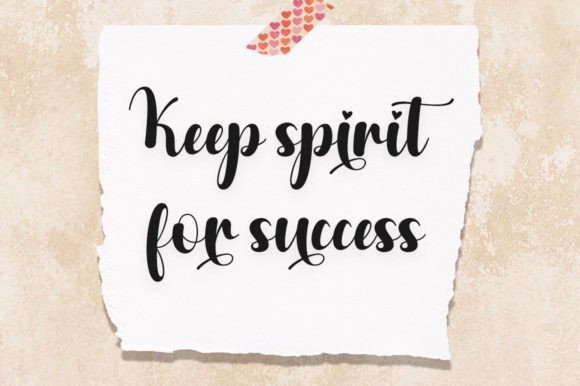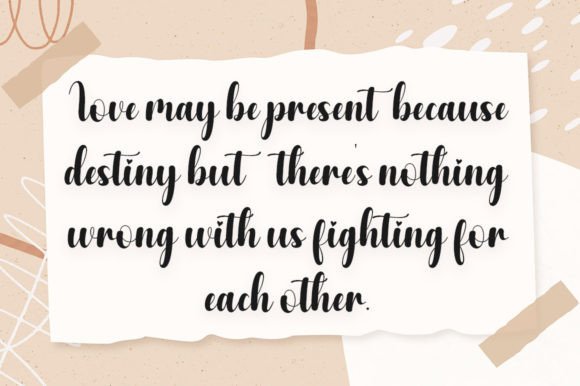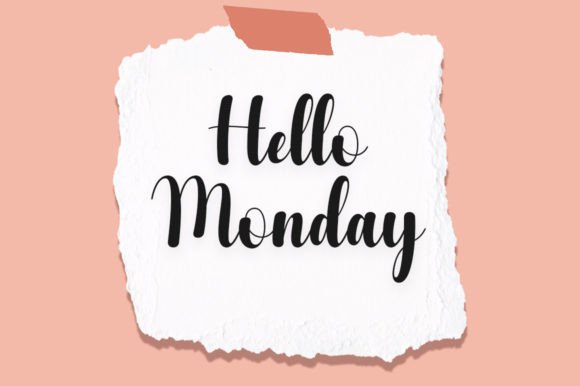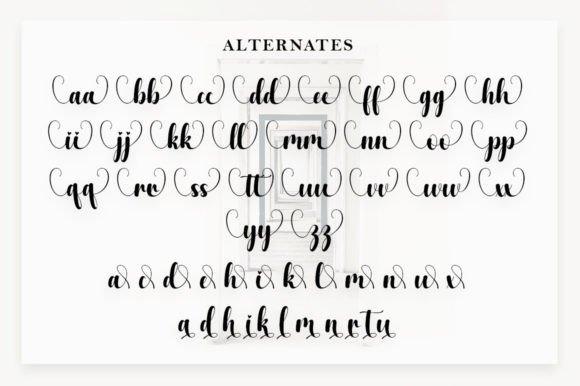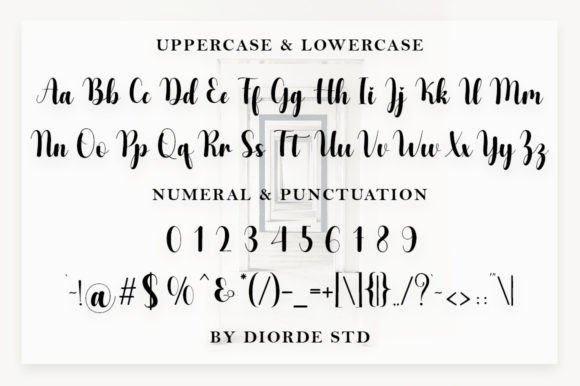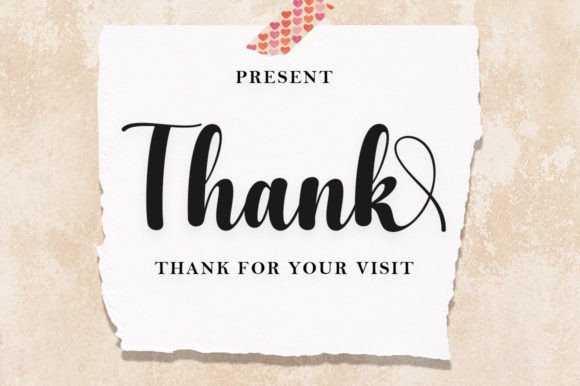
Unleash the Beauty of Handwritten Design with Bella Queen Font
Remember the moment when you first started working on a special project, like a wedding invitation or a birthday card for a loved one? The excitement and anticipation of bringing your vision to life is exhilarating, isn’t it? You want to add that perfect touch that will make it truly unique and memorable. That’s where the Bella Queen Font comes in – a beautiful, elegant handwritten font that will elevate your design to new heights.
With its neat and sophisticated style, the Bella Queen Font is perfect for any project that needs a touch of sophistication and whimsy. Whether you’re a professional designer or a hobbyist, this font is a valuable addition to your toolkit. It’s ideal for wedding invitations, cards, and any other design that requires a fancy touch. By incorporating the Bella Queen Font into your work, you’ll be able to create stunning and professional-looking designs that will leave a lasting impression.
Bella Queen Font Key Features
- Unique Characteristics: The Bella Queen Font features elegant, cursive script with intricate details and flourishes, making it ideal for creating beautiful, handwritten-style text.
Bella Queen Font Review
As a designer, I was excited to dive into the Bella Queen font and see what it had to offer. Here’s my honest review.
- Elegant and sophisticated aesthetic – Bella Queen has a unique, cursive feel that’s perfect for adding a touch of luxury to designs.
- Great for titles and headings – The font’s bold, flowing lines make it ideal for use in larger text, where it can really shine.
- Versatile – While it’s particularly well-suited for formal or high-end designs, Bella Queen can also be used in more casual contexts with great effect.
- Not ideal for body text – While Bella Queen looks great in larger text, it can be difficult to read in smaller sizes or in large blocks of text.
- Limited character set – The font doesn’t include a full set of characters, which can make it tricky to use in languages that require more complex typography.
Overall, I think Bella Queen is a beautiful font that’s perfect for designers looking to add a touch of sophistication to their work. While it has some limitations, I think the benefits far outweigh the drawbacks. With careful use, Bella Queen can really elevate a design and make it stand out.
Getting the Most Out of Bella Queen
To get the most out of the Bella Queen font, use it for headings and titles to add a touch of elegance to your designs. Experiment with different font sizes and styles to create visual interest.
The Bella Queen font is perfect for:
- Designing elegant business cards
For optimal readability, we recommend using the Bella Queen Font at a minimum font size of 12 points and a line height of 1.2 to 1.5 times the font size. This will ensure that the text is clear and easy to read, even at smaller sizes.